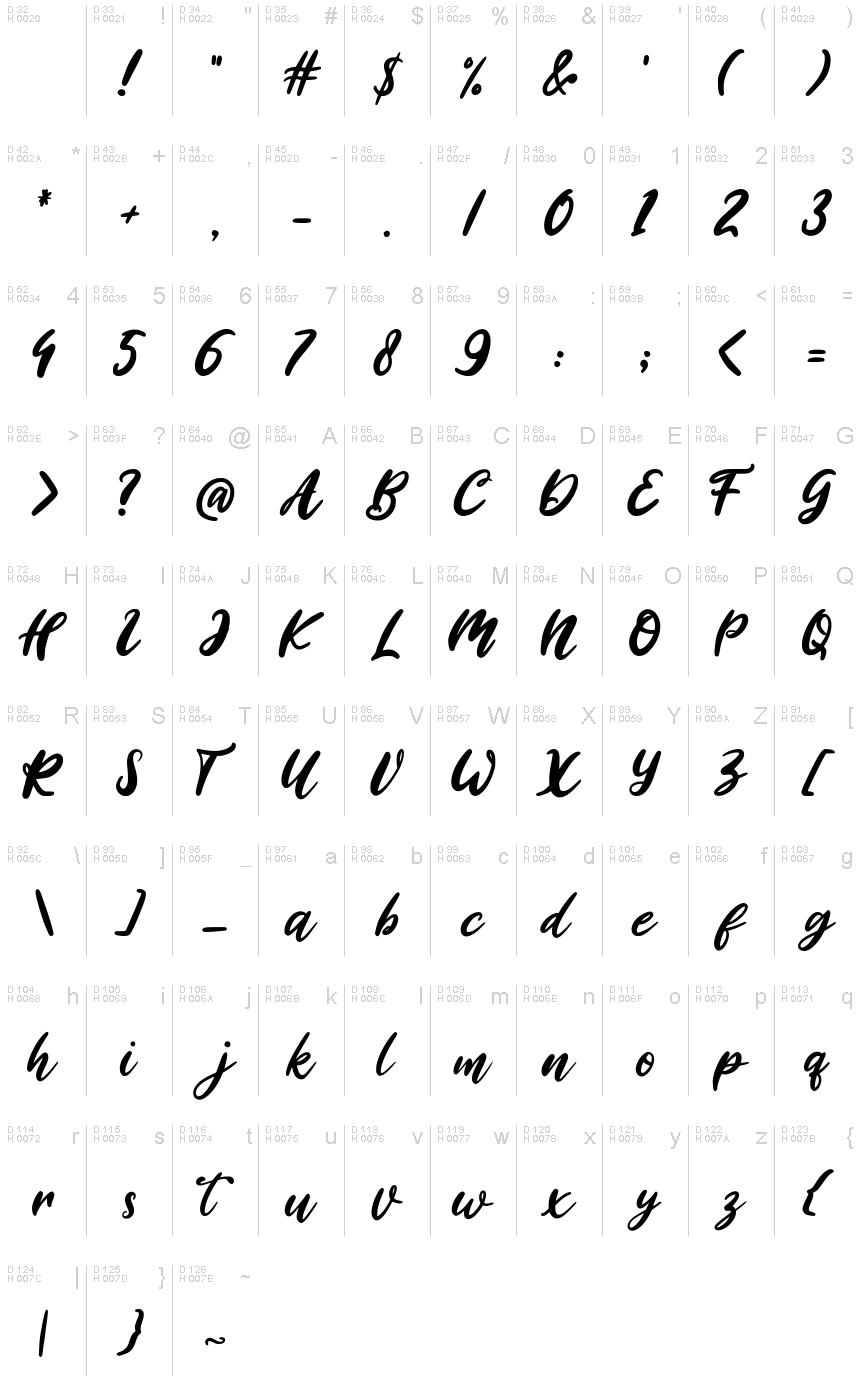
Ali Ana
Ali Ana, designed by Ikrar Bey Khubaib, is a semi-bold, handwritten font that exudes a personal touch with its semi-condensed letterforms. Its fluid strokes and varying line weights capture the essence of traditional handwriting, while maintaining a modern aesthetic that's both versatile and expressive. The unique character of Ali Ana lies in its ability to convey warmth and authenticity, making it an excellent choice for branding projects, invitations, and any design work where a human touch is desired.
The font's stylish appearance combined with its readability ensures that it stands out in both print and digital mediums. Whether you're crafting elegant headers or looking to add a personal flair to your creative endeavors, Ali Ana is poised to bring your words to life with its distinctive charm.